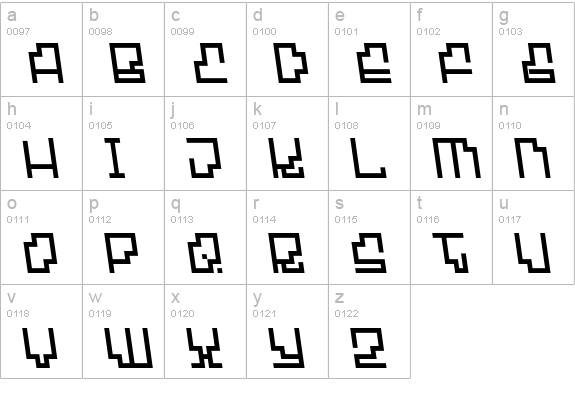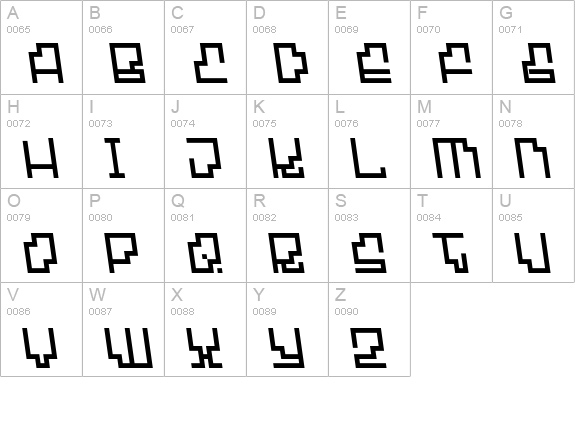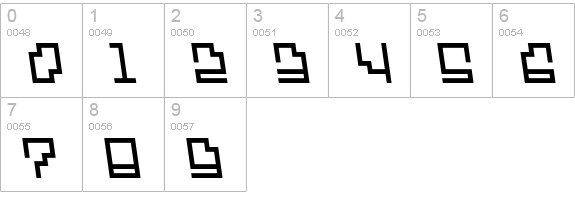
Hypersonic Font Details
Hypersonic font is a sleek and modern typeface that exudes energy and sophistication. With its sharp lines and futuristic design, this font is perfect for adding a contemporary touch to any project. Whether you're creating a logo, poster, or website, Hypersonic font will make your text stand out with its bold and dynamic appearance. The best part is, Hypersonic font is completely free to use and is available for download at FontsMarket.com. So you can elevate your designs without breaking the bank. Don't miss out on this stylish and versatile font that will take your projects to the next level. Download Hypersonic font today and let your creativity soar!